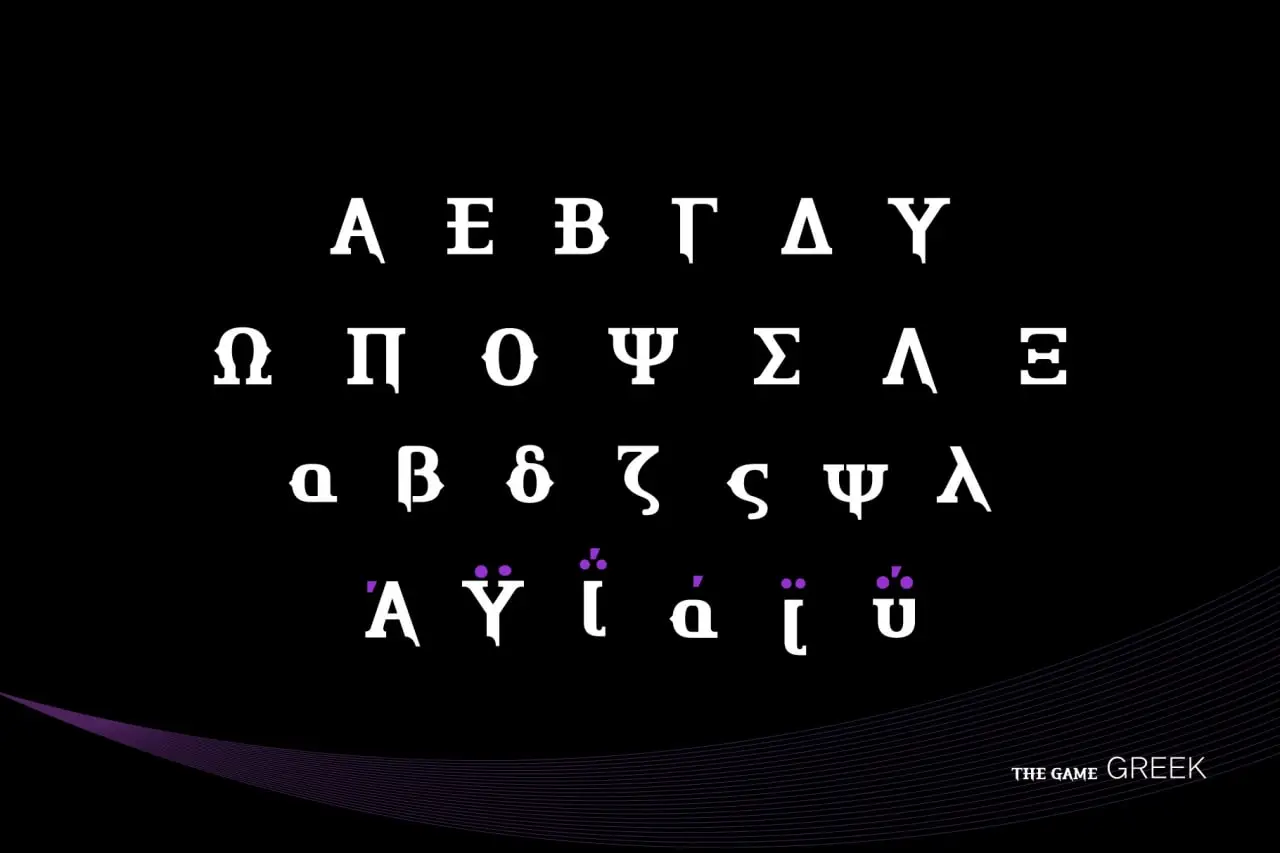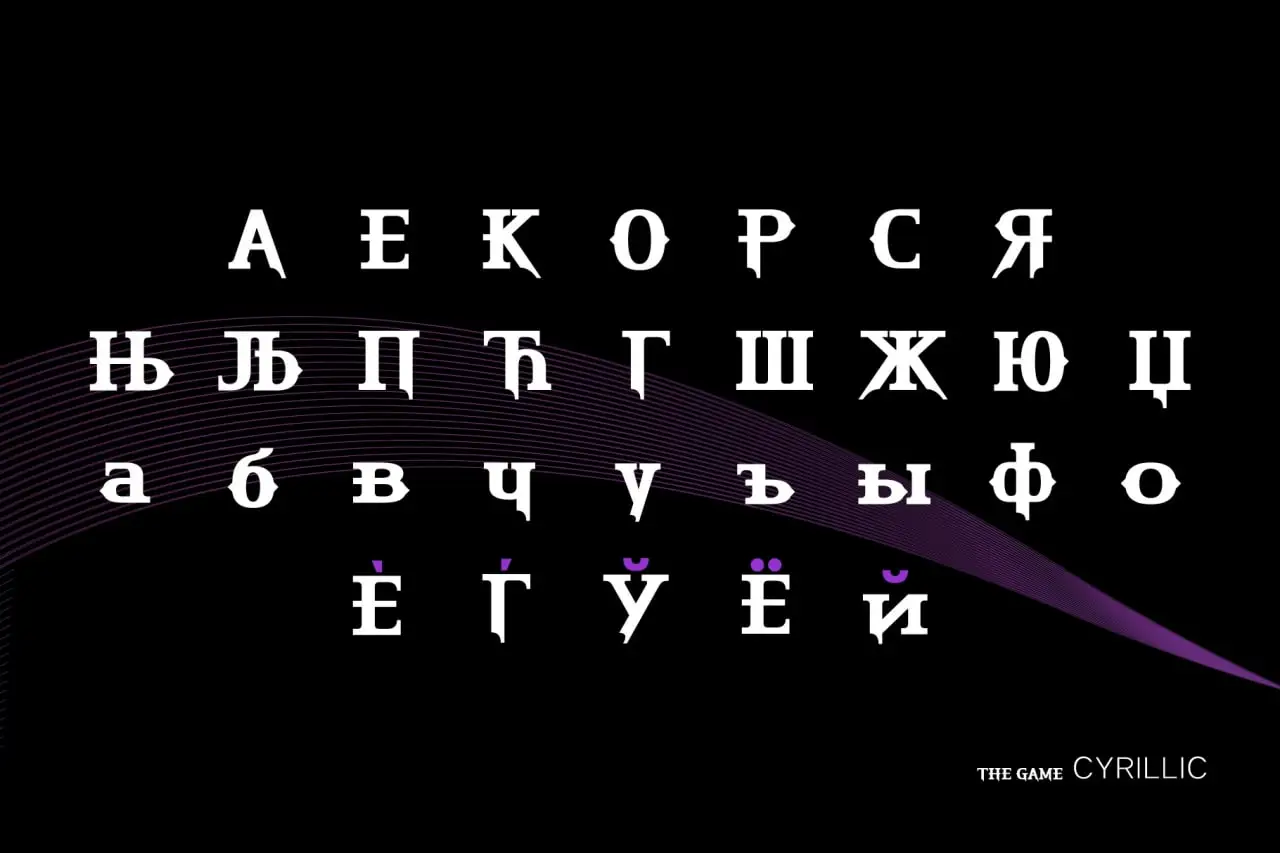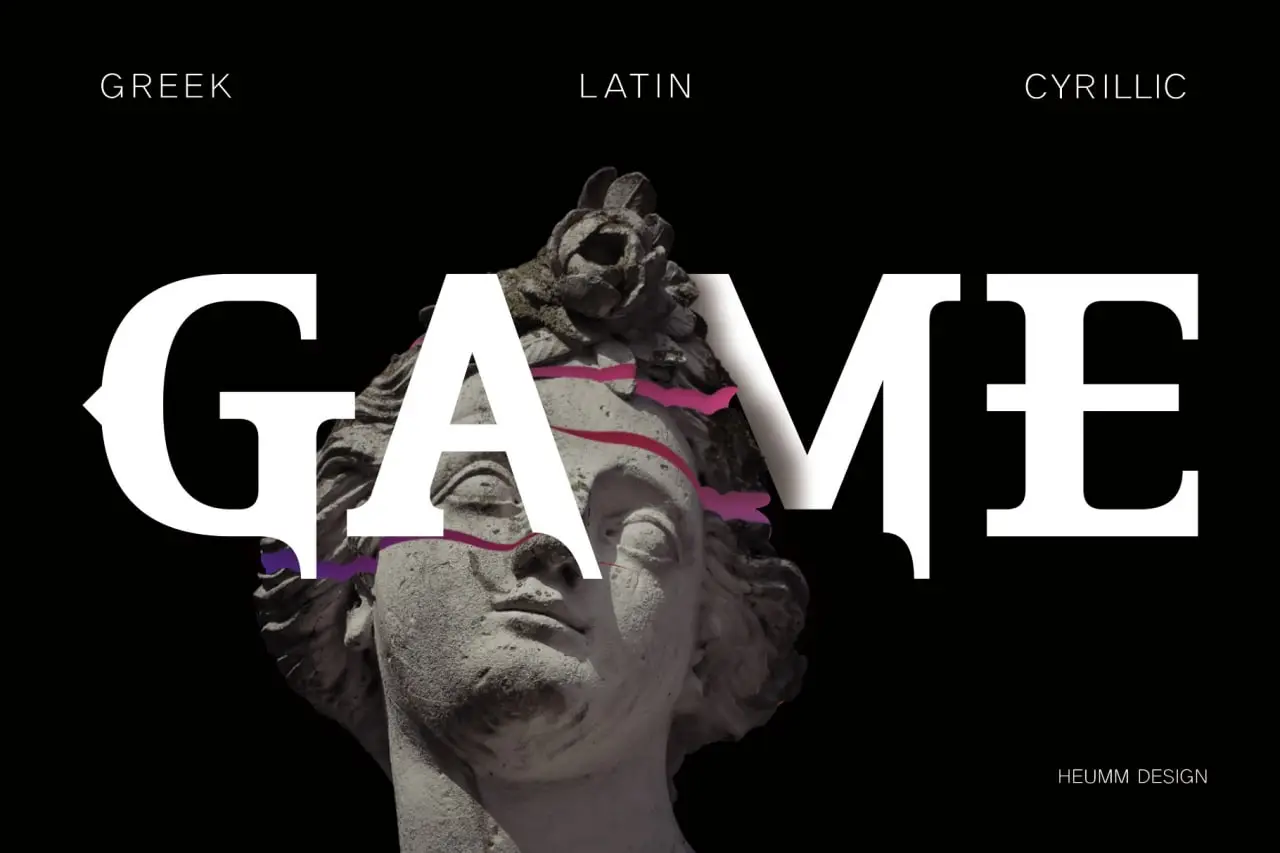
Hu The Game Font Cyrillic By Haerin Lee Heummdesign
Introducing the Hu The Game Font Cyrillic, designed by Haerin Lee of Heummdesign. This unique typeface blends modern aesthetics with a playful touch, making it perfect for various applications.
• Cyrillic support for diverse language use
• Multiple weights for versatility in design
• Stylish and contemporary look
• Great for web design and user interfaces
• Perfect for print projects such as posters and flyers